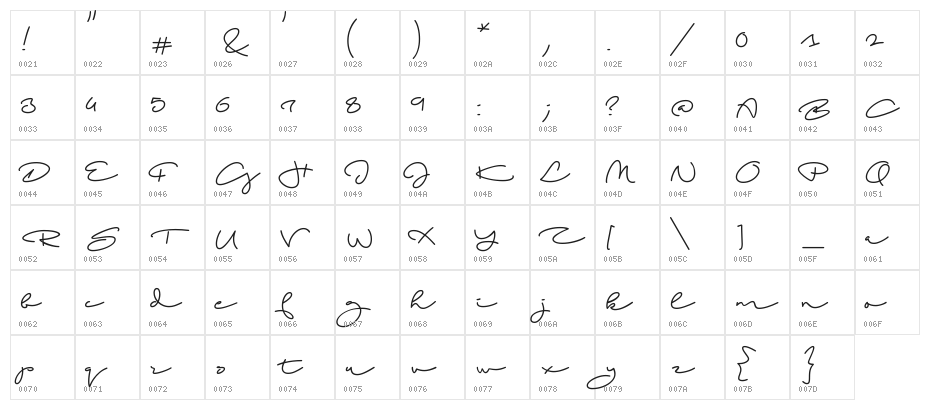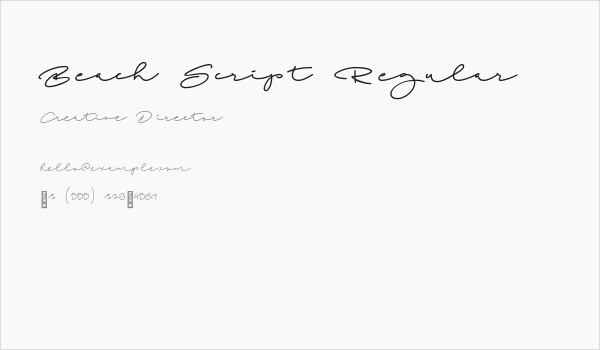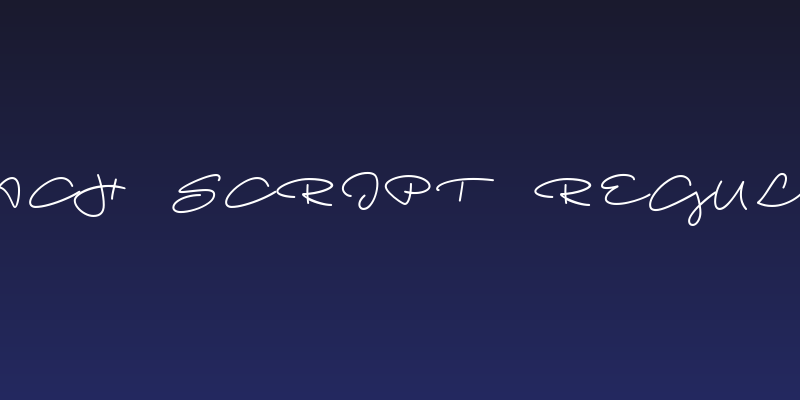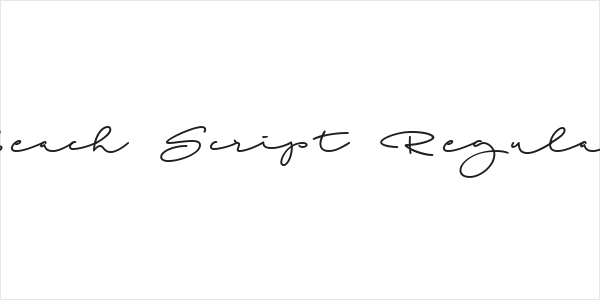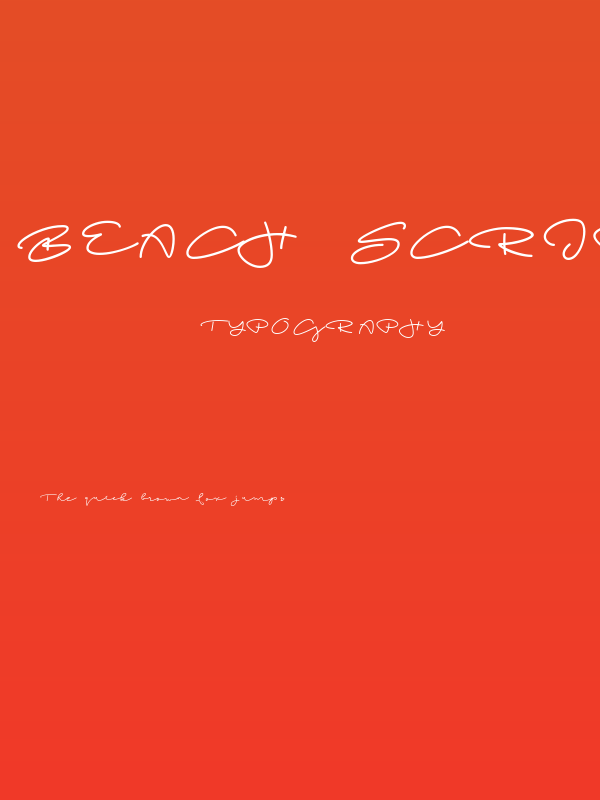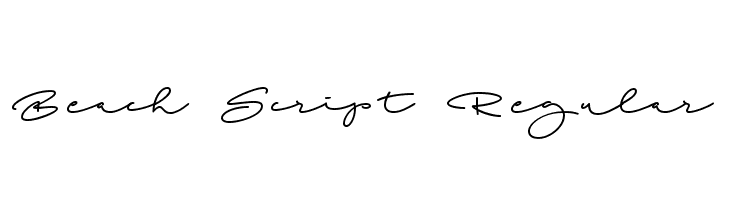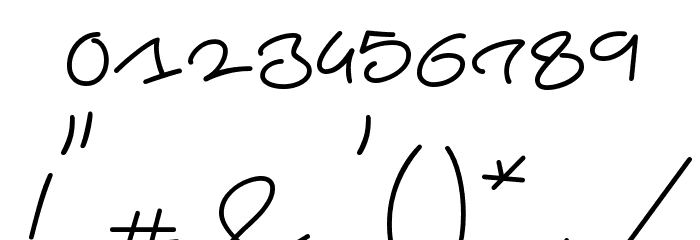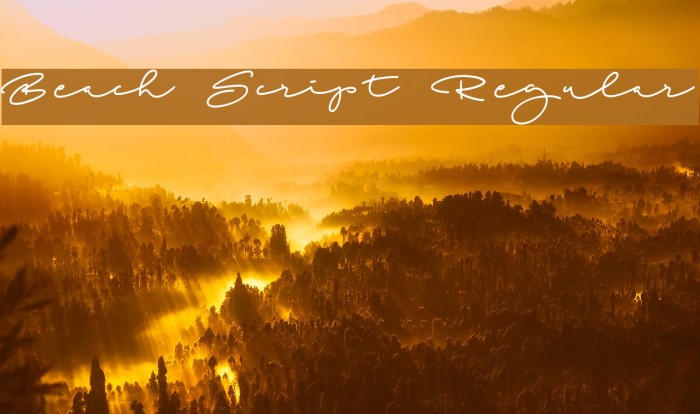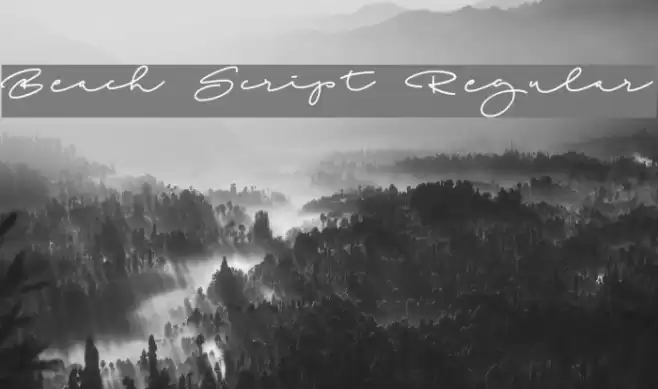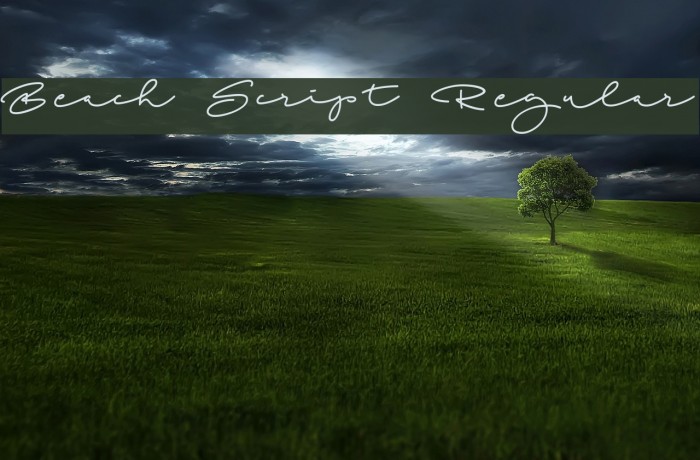
Beach Script Regular Font
Beach Script Regular Description
This font features a fluid and elegant script style, reminiscent of handwritten calligraphy. The characters are connected with smooth, flowing lines, giving it a casual yet sophisticated appearance. The uppercase letters are slightly more ornate, with loops and curves that add a touch of flair. The lowercase letters maintain a consistent flow, enhancing readability while retaining a personal touch. The numerals are clear and well-defined, matching the overall aesthetic of the font. Special characters are thoughtfully designed to complement the script style, making this font versatile for various applications.